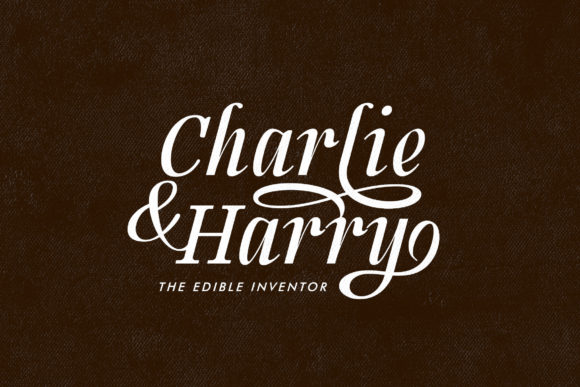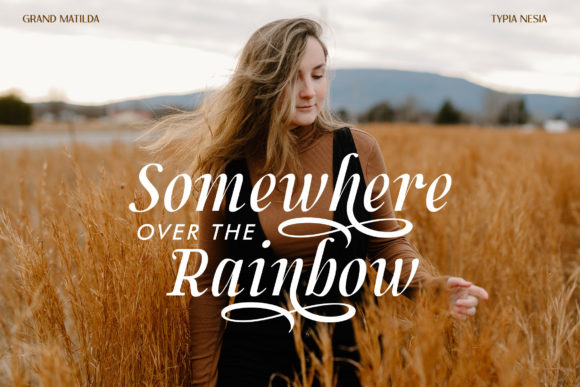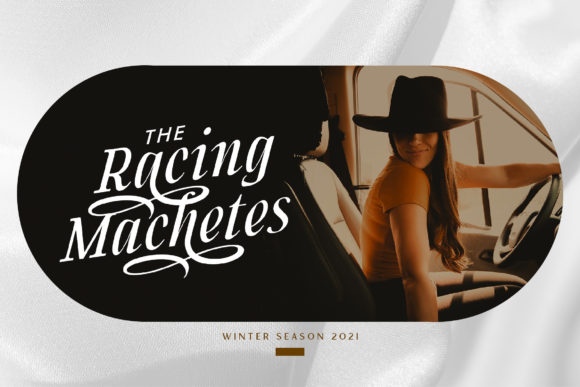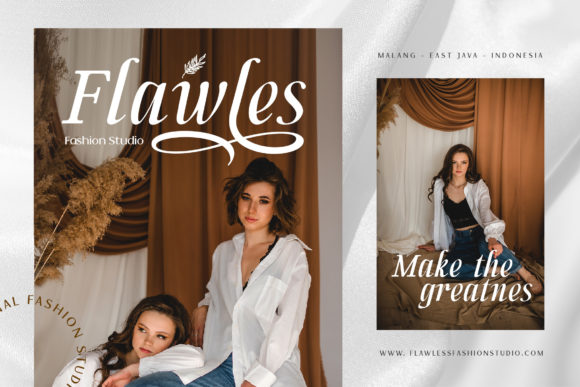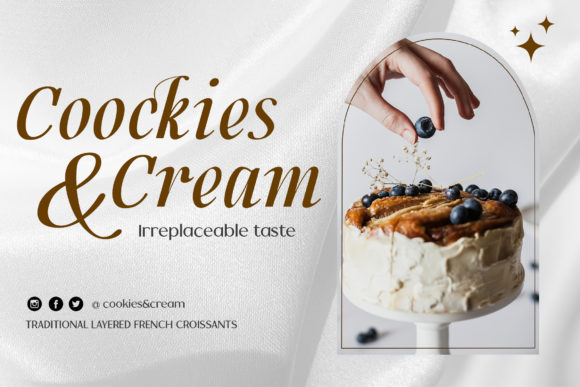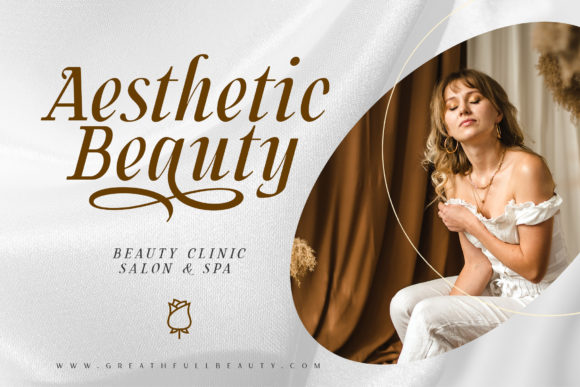
Introducing Grand Matilda Font: Elevate Your Designs with Elegance and Sophistication
Are you a designer or crafter looking for a font that exudes class, elegance, and modernity? Look no further than Grand Matilda Font. This beautiful and refined script font is perfect for adding a touch of sophistication to any design project. In this article, we’ll dive into the features and benefits of Grand Matilda Font, and explore how it can elevate your designs to the next level.
A Classy, Elegant, and Modern Script Font
Grand Matilda Font boasts a stunning script design that is both elegant and modern. Its refined lines and curves make it perfect for creating beautiful text-based designs that are sure to impress. Whether you’re working on a logo, branding project, or social media graphics, Grand Matilda Font is the perfect choice for adding a touch of sophistication and glamour.
Grand Matilda Font is incredibly versatile and can be used for a wide range of design projects. Here are just a few ideas to get you started:
- Logos and Branding: Create a lasting impression with a custom logo or branding project that showcases your business’s personality and style.
- Social Media Graphics: Elevate your social media presence with stunning graphics that feature Grand Matilda Font.
- Invitations and Stationery: Add a touch of elegance to your invitations, cards, and stationery with Grand Matilda Font.
- Packaging and Labels: Stand out on store shelves with eye-catching packaging and labels that feature Grand Matilda Font.
Why Choose Grand Matilda Font?
With so many fonts to choose from, why should you choose Grand Matilda Font? Here are just a few reasons:
- Unique and Versatile: Grand Matilda Font offers a unique and versatile design that can be used for a wide range of projects.
- Elegant and Sophisticated: Add a touch of elegance and sophistication to your designs with Grand Matilda Font.
- High-Quality Design: Grand Matilda Font is designed to the highest standards, ensuring a high-quality finish for all your design projects.
- What is Grand Matilda Font?
- Grand Matilda Font is a beautiful and refined script font with a classy, elegant, and modern look.
- What can I use Grand Matilda Font for?
- Grand Matilda Font can be used for a wide range of design projects, including logos, branding, social media graphics, invitations, packaging, and more.